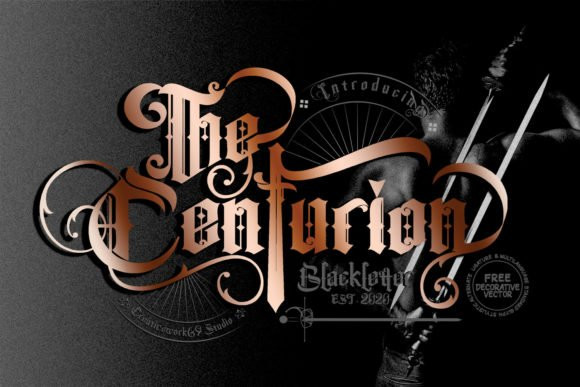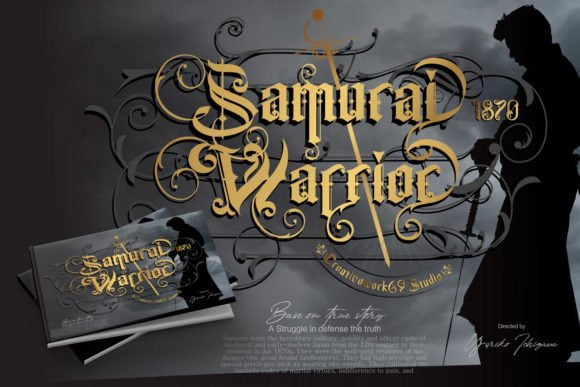
The Centurion Font
The Centurion is a gothic blackletter. It feels classic and artistic. Add this beautiful font to each of your creative ideas and notice how it makes them stand out!